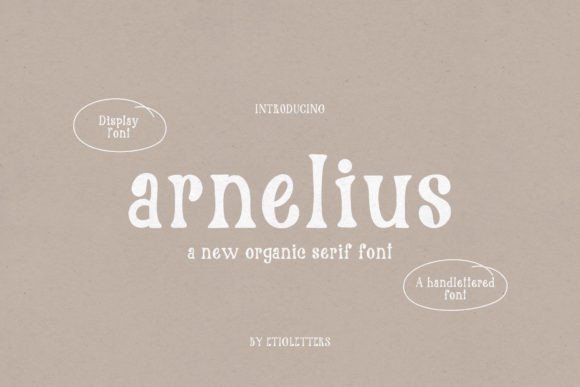
Step into a world of elegance and sophistication with Arnelius, the serif font that will transform your designs into timeless masterpieces. Inspired by the charm of antique typography, Arnelius carries the spirit of nostalgia with a modern twist. Its refined curves and delicate serifs bring a touch of vintage beauty to your creations, evoking a sense of timeless elegance.
As you navigate through the captivating world of Arnelius, you'll discover a versatile font family that lends itself seamlessly to a myriad of design projects. Whether you're crafting heartfelt wedding invitations, designing alluring packaging, or creating labels that exude a touch of sophistication, Arnelius will elevate your designs to new heights.
With Arnelius as your creative companion, you'll embark on a journey of limitless possibilities. Its graceful strokes will add a touch of refinement to your design quotes, while its elegant presence will enhance the allure of your branding. Let Arnelius be the key that unlocks the door to a world where vintage charm meets contemporary elegance.
As you delve deeper into the world of Arnelius, you'll uncover a font that's not just visually stunning but also incredibly practical. Its clear and legible letterforms ensure readability, making it perfect for both text and headings. Whether you're designing a captivating brochure or creating a website that captivates your audience, Arnelius will ensure your message is conveyed with clarity and impact.
Unleash the power of Arnelius today and embark on a creative journey where vintage charm intertwines with modern elegance. Let your designs speak volumes and leave an unforgettable impression with this timeless font.